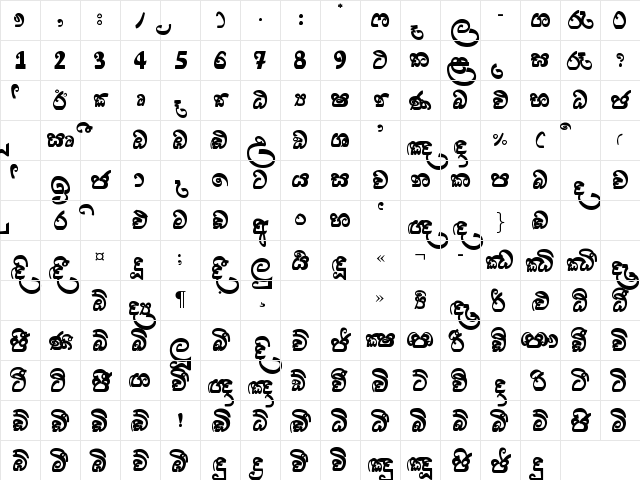
apex-a.pura-002 Regular
Design Context for apex-a.pura-002
apex-a.pura-002 is a composed and adaptable typeface that performs quietly and consistently across a wide range of design contexts.